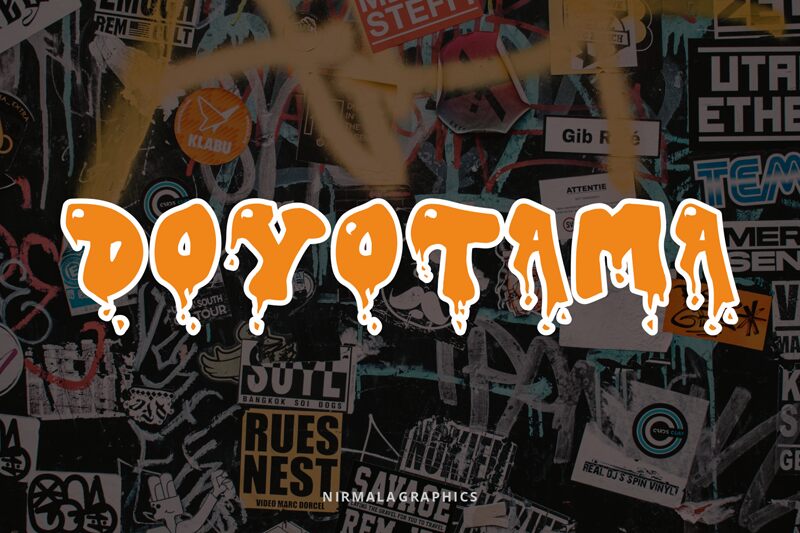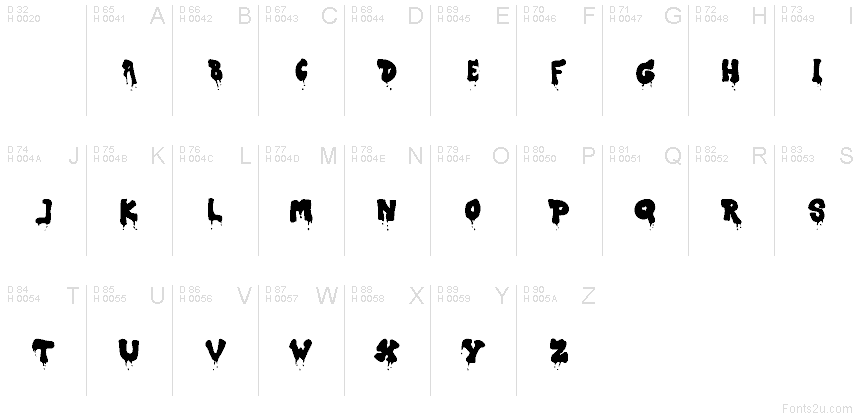
Doyotama
Doyotama font by Nirmala Graphics is a free graffiti typeface. Big, inky letters sag into thick drips, like fresh paint sliding down a brick wall. The blobs are bold but readable, with a loose rhythm that feels hand-sprayed and a little dangerous—great when you want your message to hit hard and leave a mark.
Using Doyotama, headlines feel wet, loud, and immediate—shines on streetwear logos, horror posters, Halloween promos, album art, skate zines, sticker packs, and bold event flyers. Keep it large and let the drips breathe; pair with a clean geometric sans for details to keep the chaos under control. This free font loves high-contrast color schemes and gritty textures.